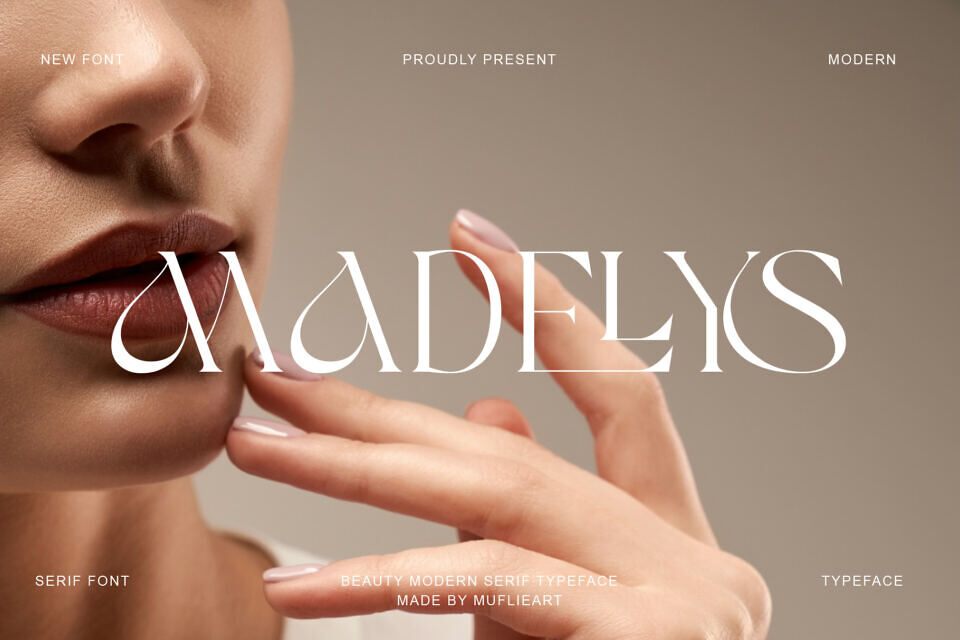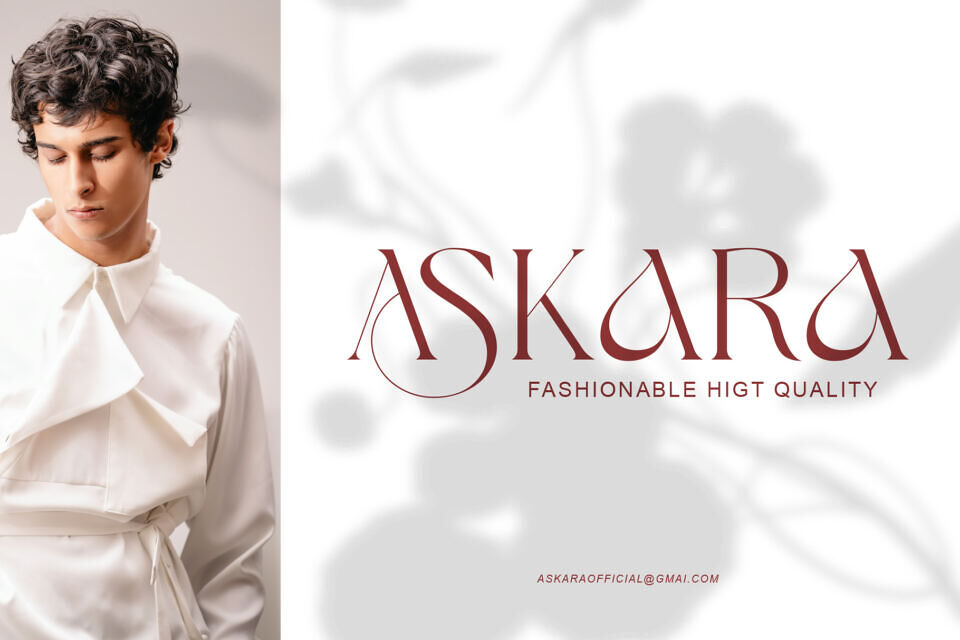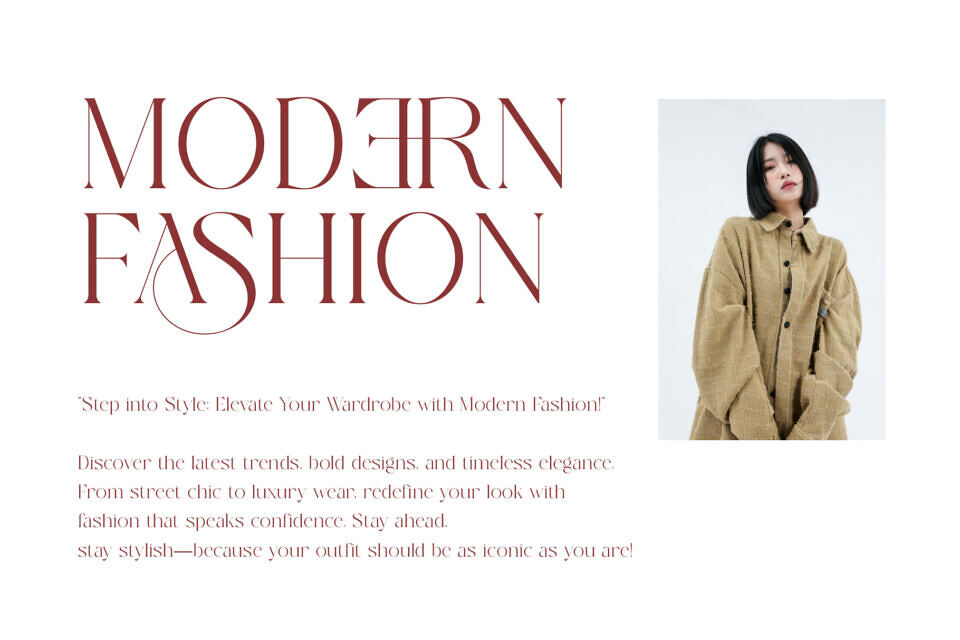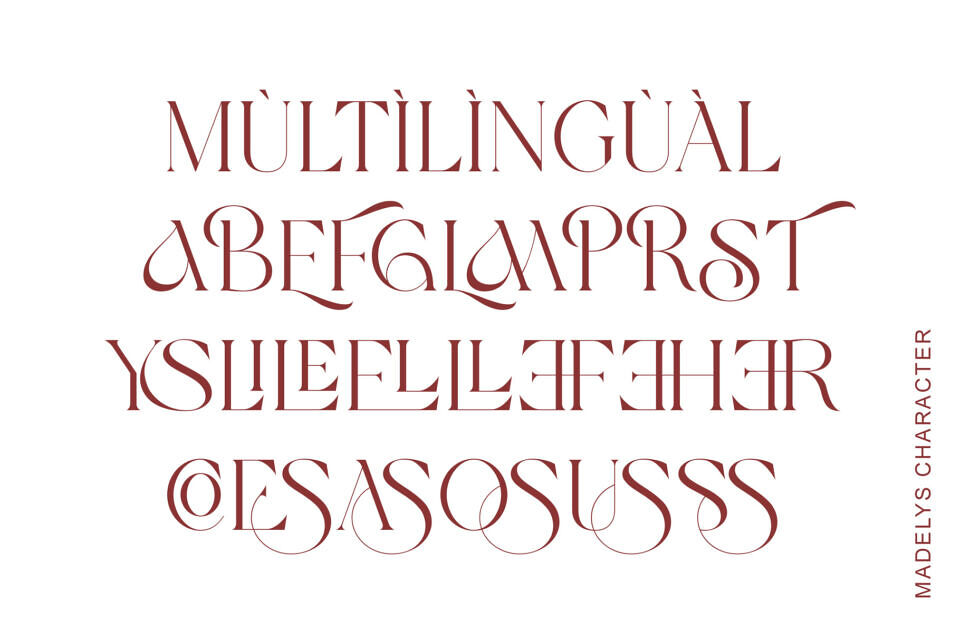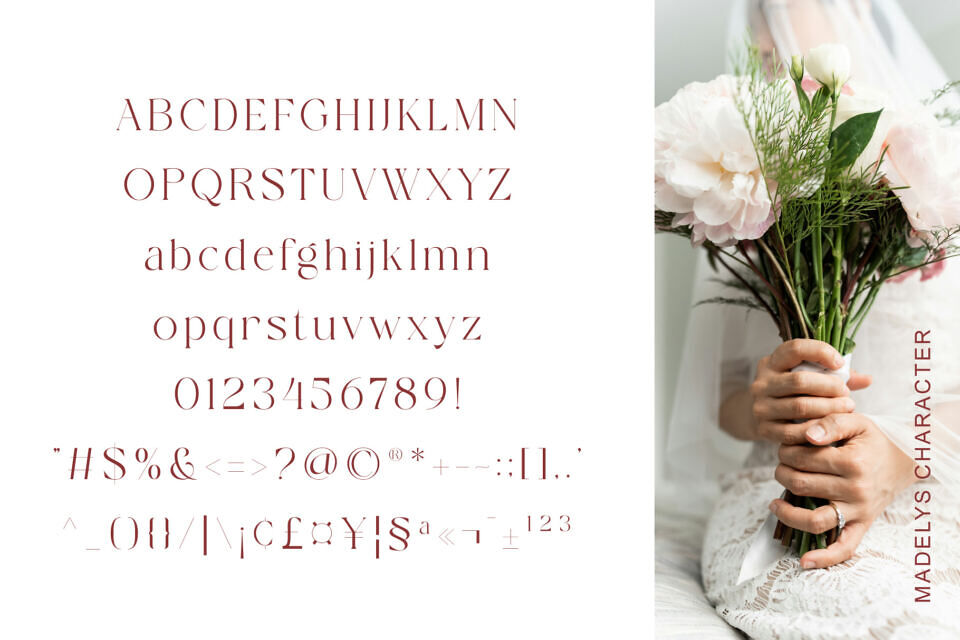
Madelys Font
Introducing Madelys the elegant, beautiful, and modern Serif. With its modern and minimalist look, Madelys brings a luxurious, classy, ​​and clean style to your projects such as websites, modern logos, brand identities, social media quotes, wedding stationery, magazines, and more!
Madelys is perfect for: logos, brands, wedding invitations, business cards, greeting cards, posters, magazines, social media, agenda prints, and websites.